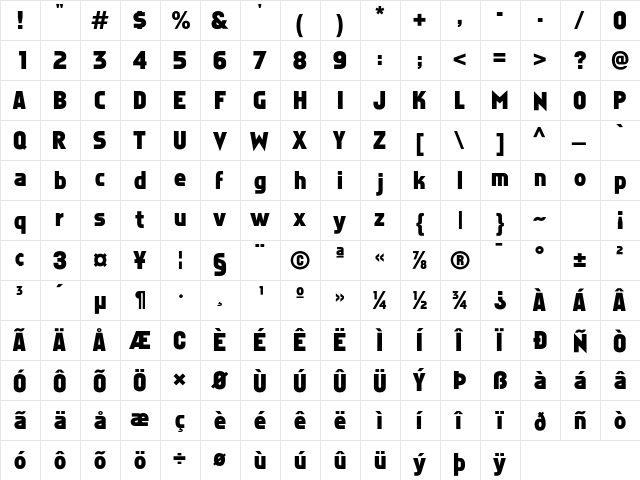
Faktos Regular
Design Context for Faktos Typeface
Faktos takes a measured approach to typography — its balanced proportions and neutral character make it a reliable workhorse for both digital and print work.